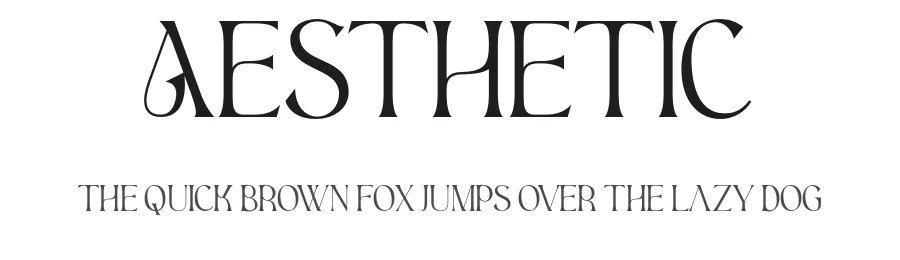
About Rihena Font
Rihena ships with 3 OpenType features you can switch on in apps that support them (Illustrator, InDesign, Affinity, Figma, CSS font-feature-settings).
Rihena Font is a versatile serif font that works for both headings and body text. Pair it with a contrasting sans-serif or slab serif font to add visual interest and a clear distinction between titles and body copy.